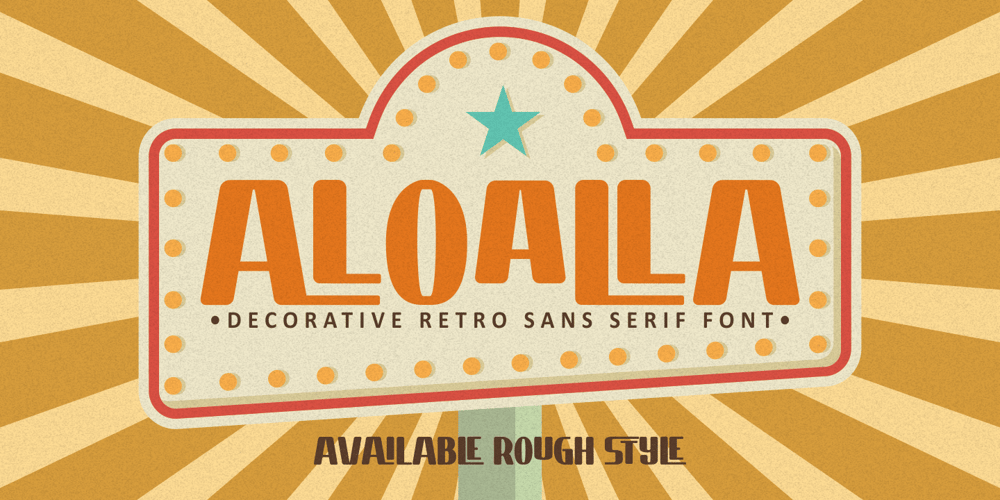
Aloalla Font Family was designed by Putra Novembria Candra Kusuma and published by Putracetol. Aloalla contains 2 styles and family package options. Aloalla is Decorative Retro Sans Serif Font. This font also goes into a classic style, with a neat and soft shape. There is a rough/texture version too. I strengthen the vintage/retro impression with the character ligatures, there are 118 ligatures in this font. But if you want to use this font with a neater impression, you can disable this ligature feature.This font is perfect for projects with vintage/retro and classic themes. But this font is also suitable for logos, branding, greeting cards, invitation cards, advertisements, titles, healines, book titles, stickers, packaging, quotes, posters, t-shirts/apparel, billboards and others.This font is also support multi language.To access the alternate glyphs, you need a program that supports OpenType features such as Adobe Illustrator CS, Adobe Photoshop CC, Adobe Indesign and Corel Draw.